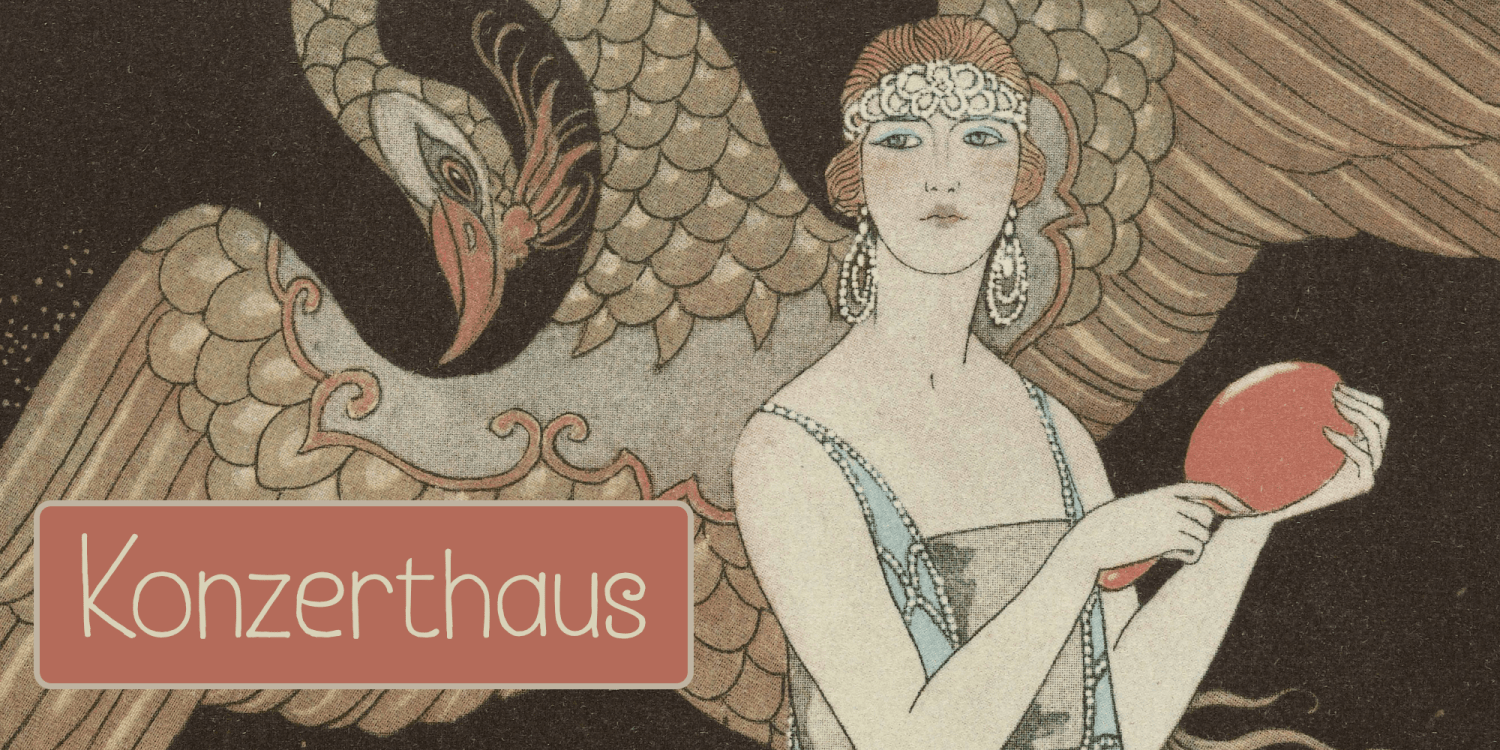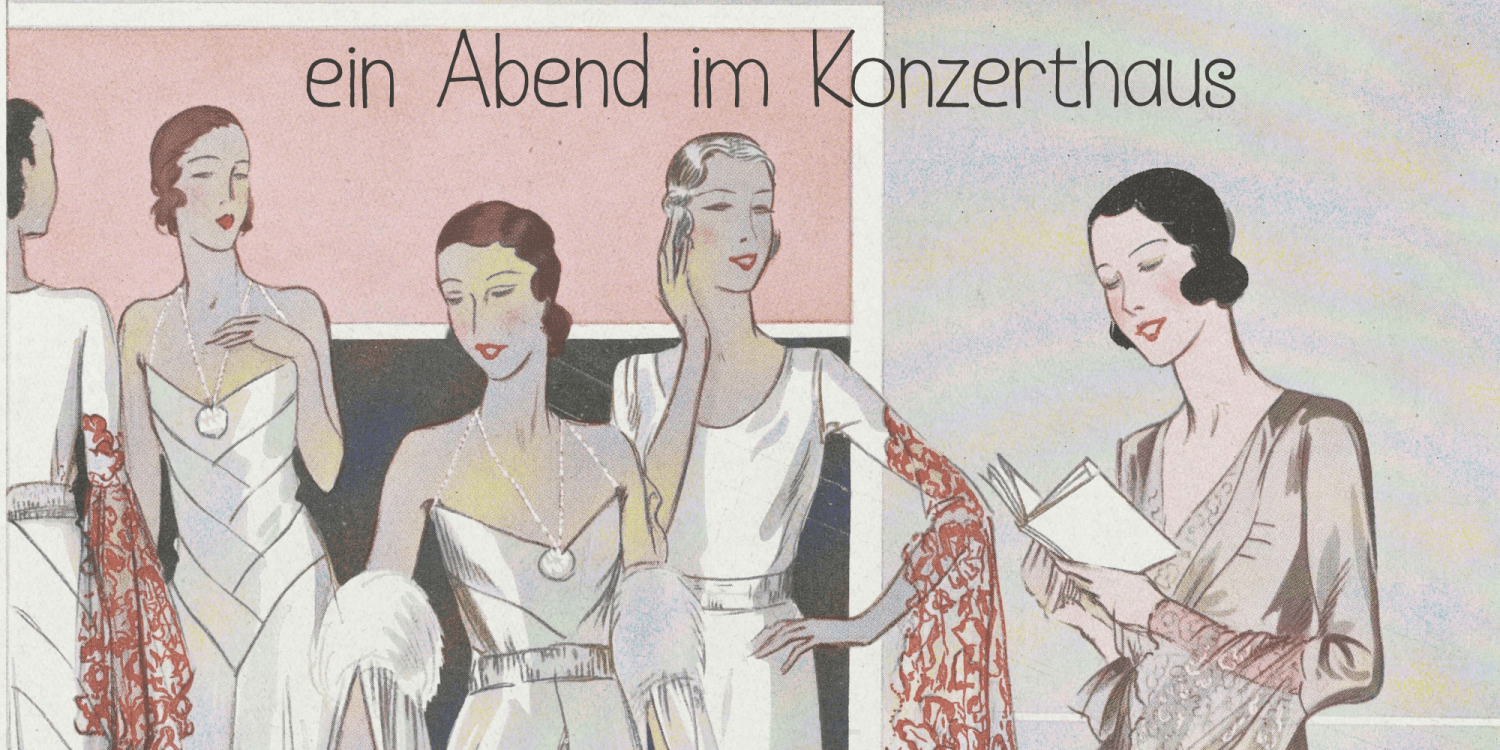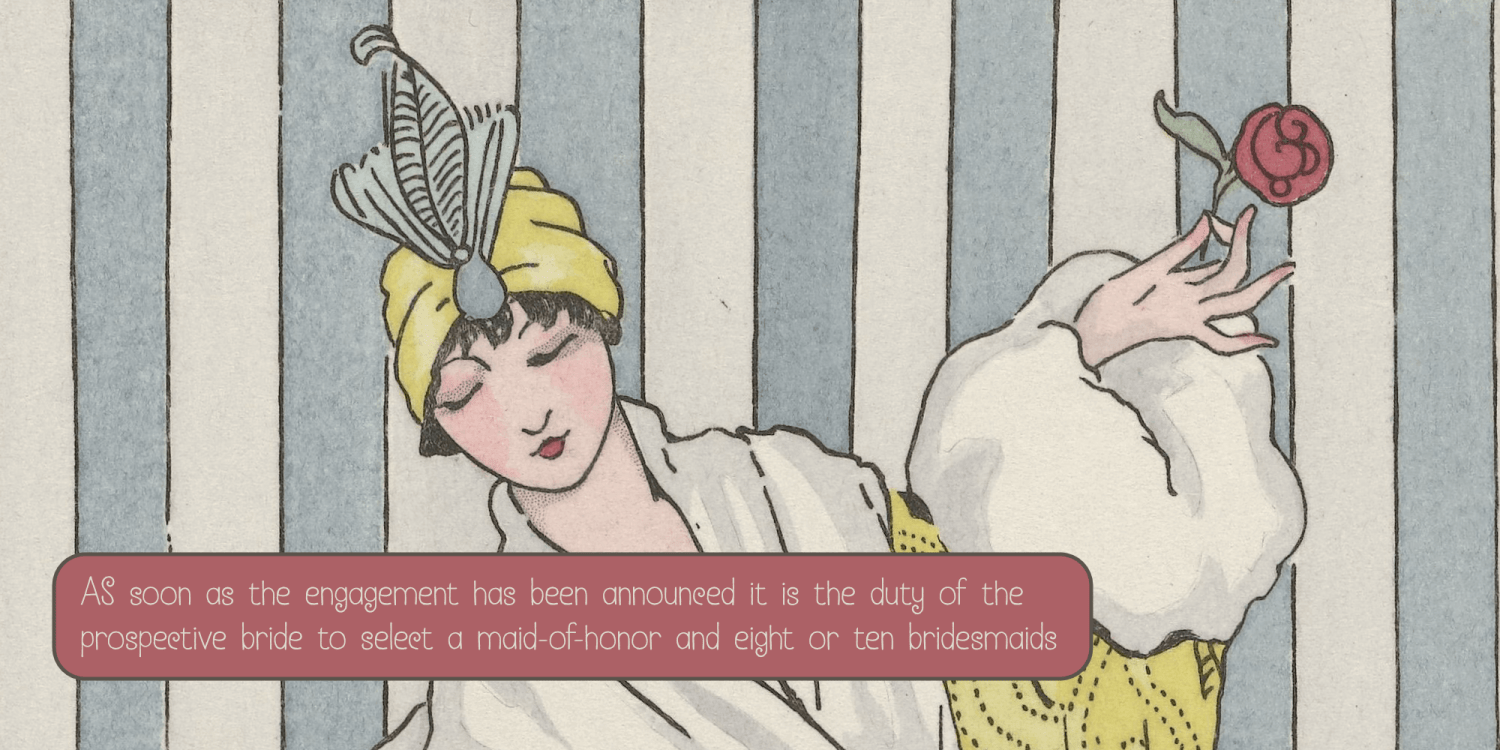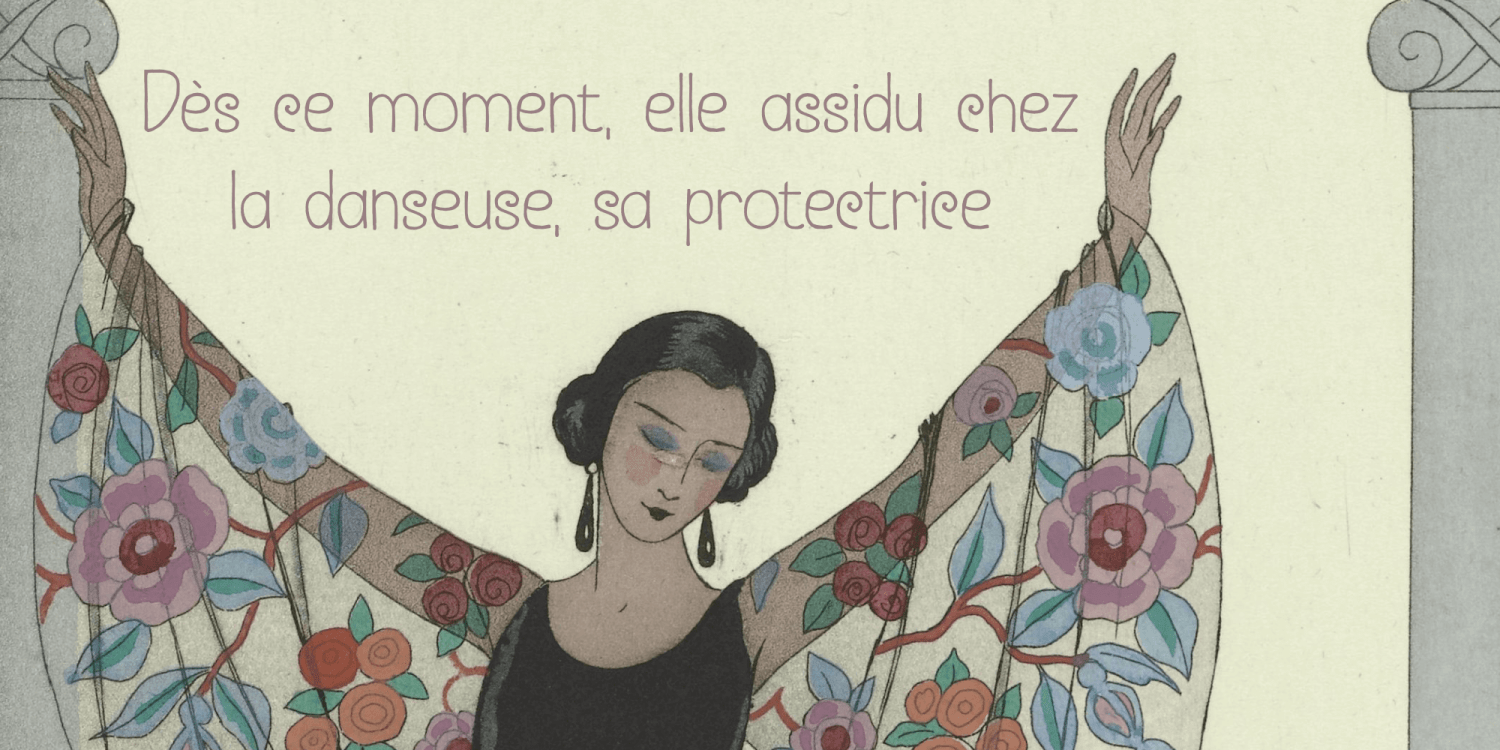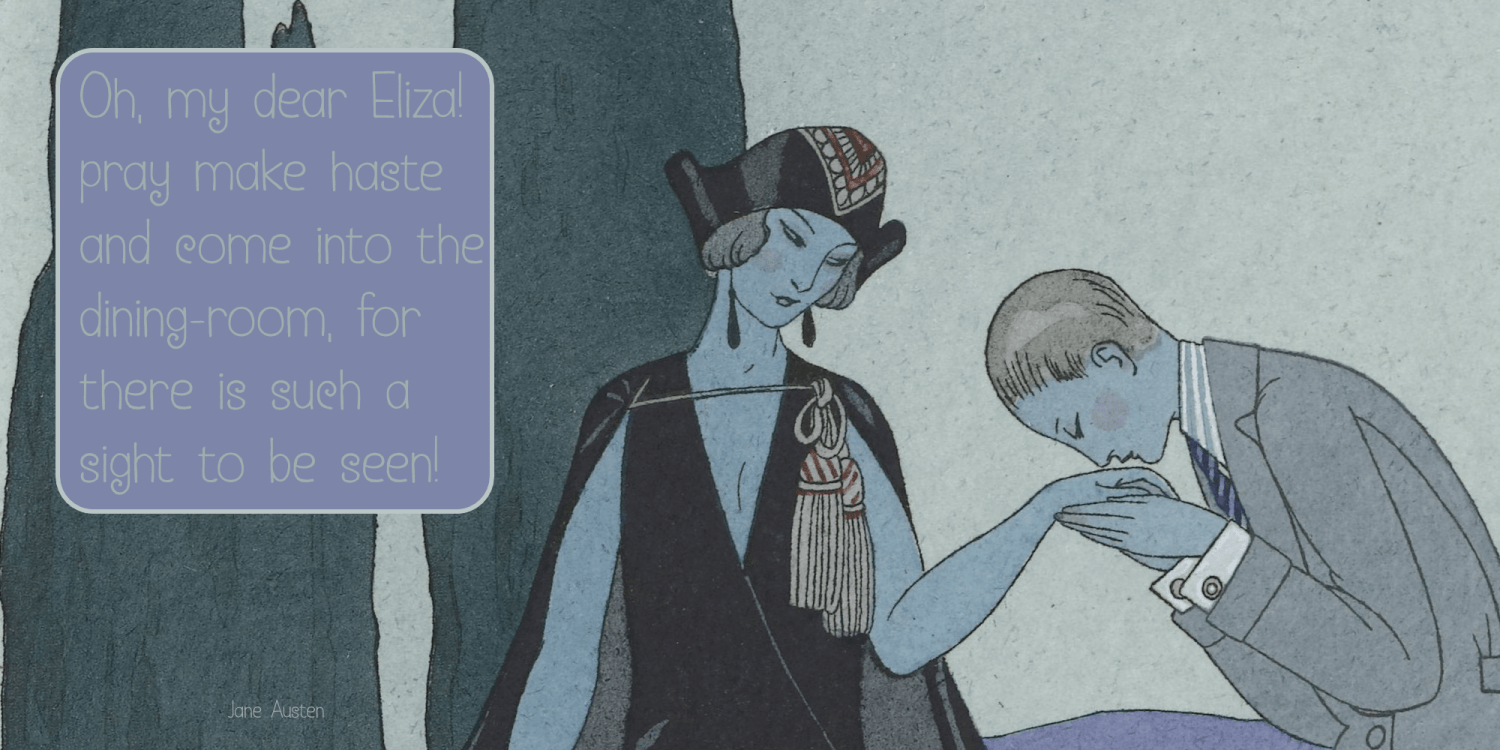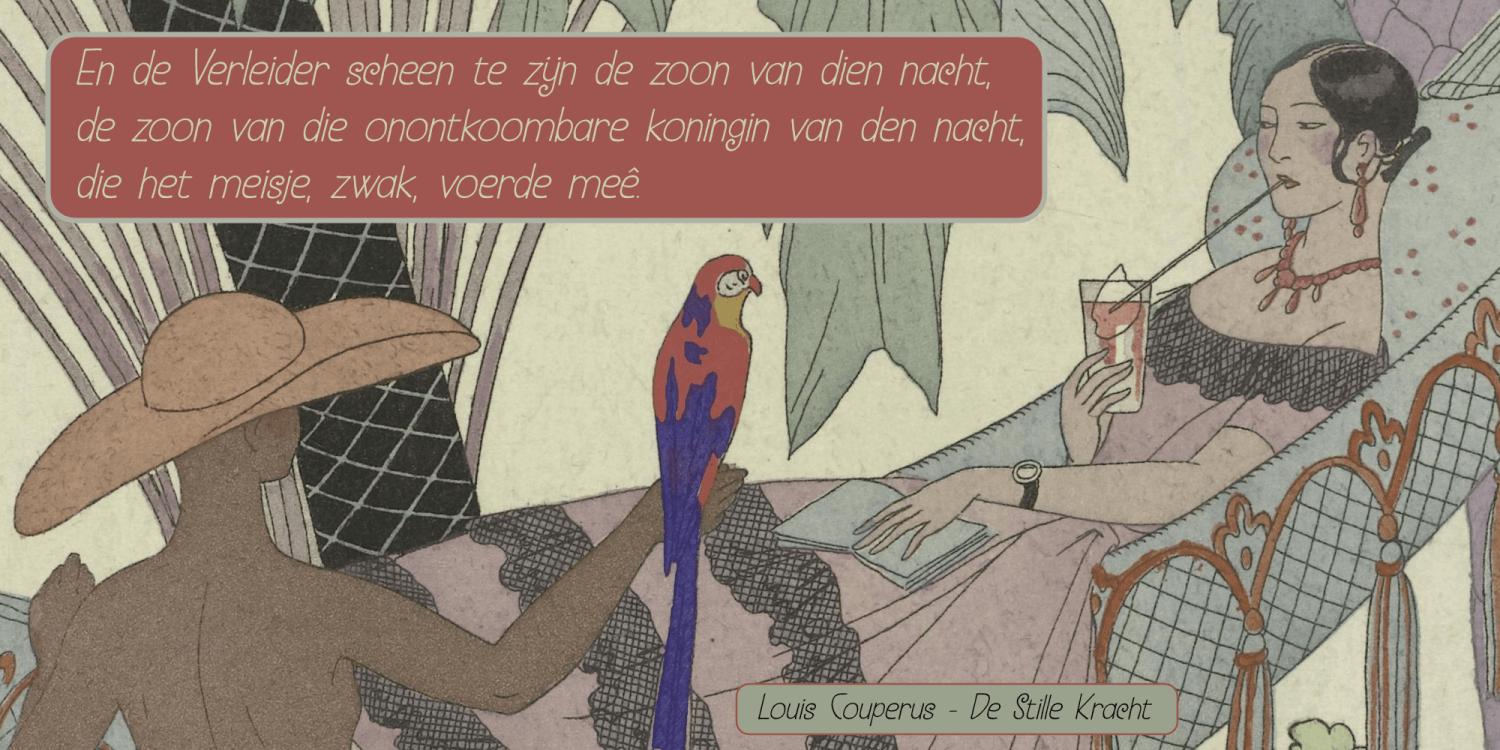
Konzerthaus
Konzerthaus is German for Concert Hall. I chose this name, because this font is a reincarnation of an old font I made years ago, called Kunstschau. That old font was modeled on a stamp, designed by Austrian artist Bertold Löffler, for the 1908 art exhibition in Vienna, which was held on the grounds of what would become the Wiener Konzerthaus.
Long story, nice font!
The original Kunstschau font only came with caps and limited language support. Its reincarnation now sports a lower case, updated and improved glyphs and extensive language support.